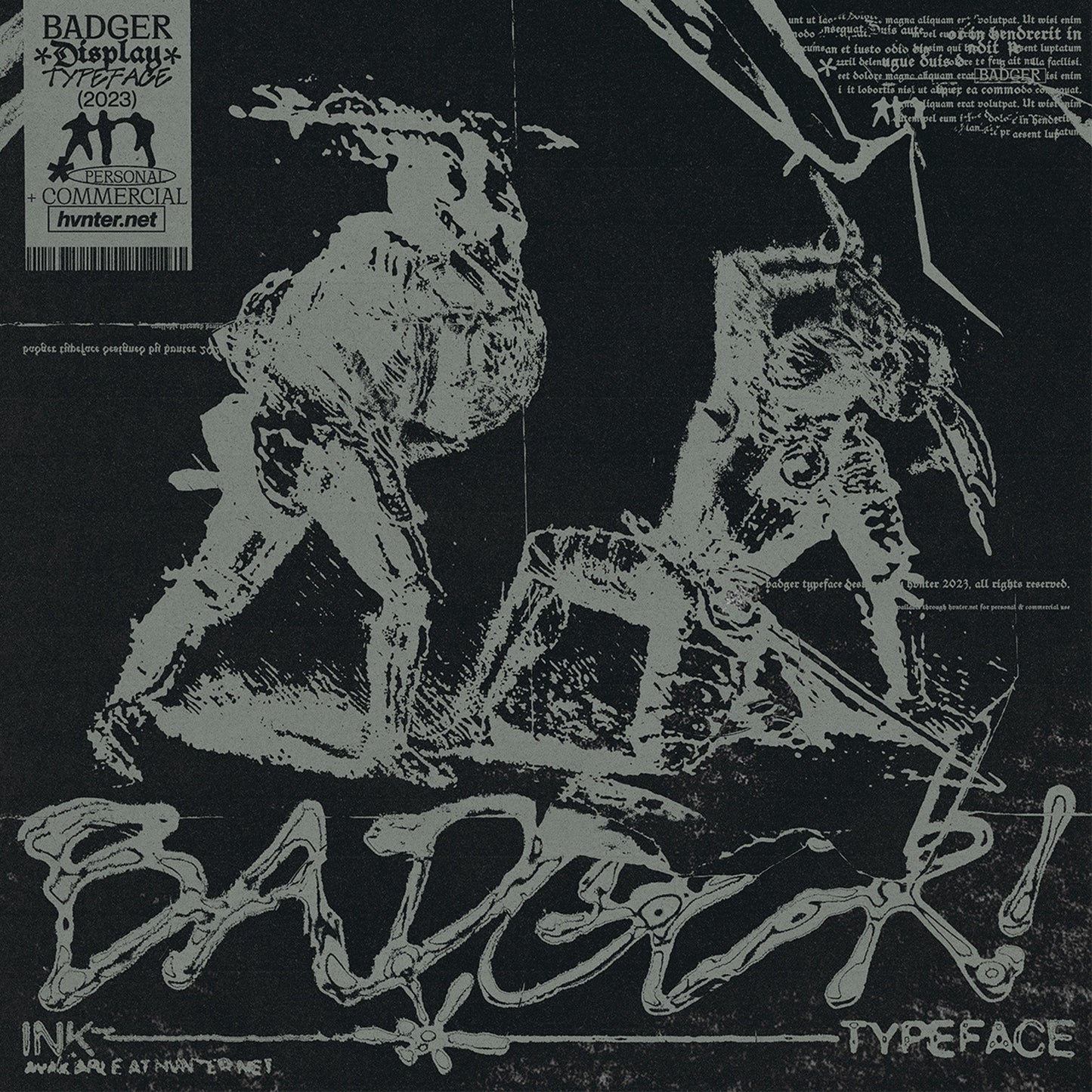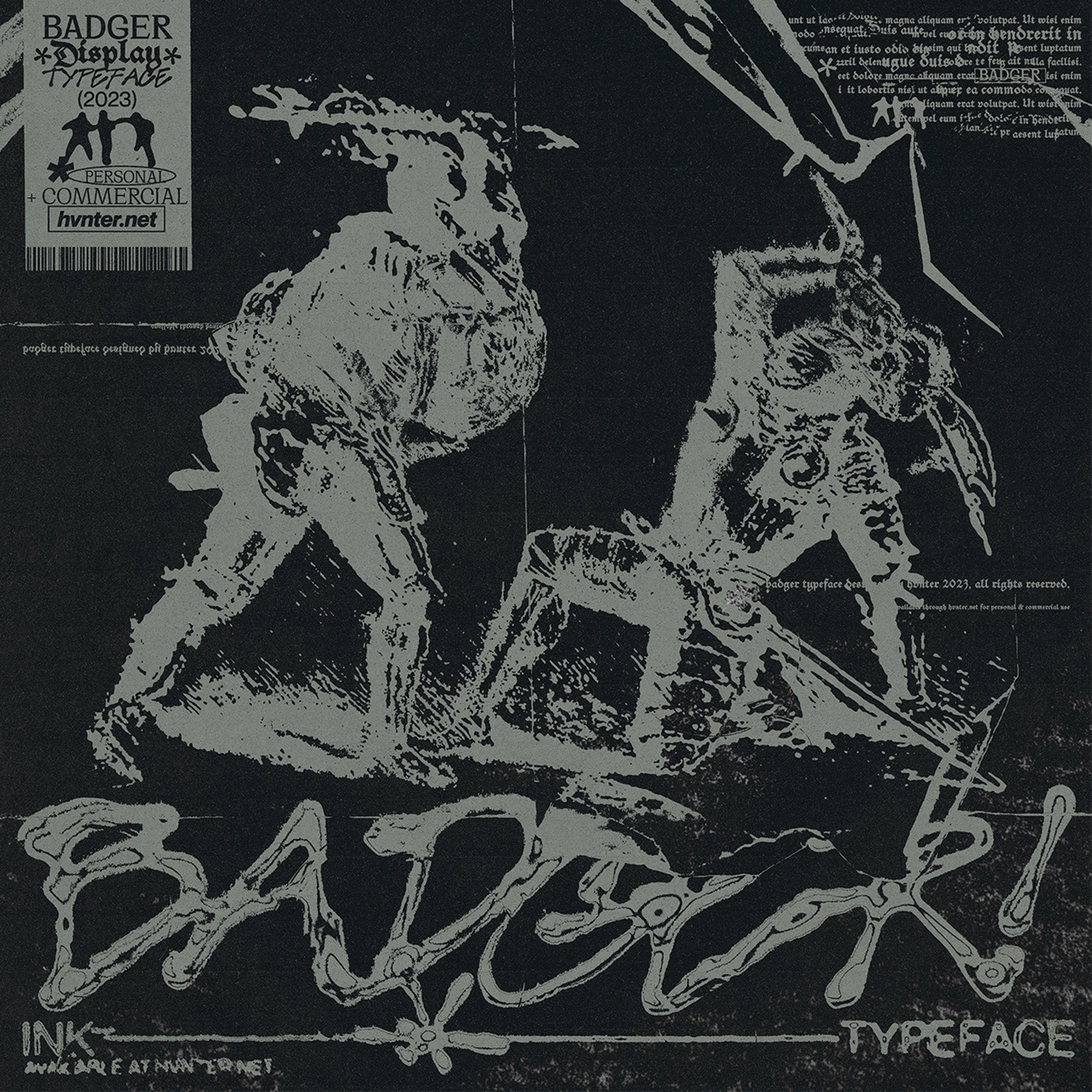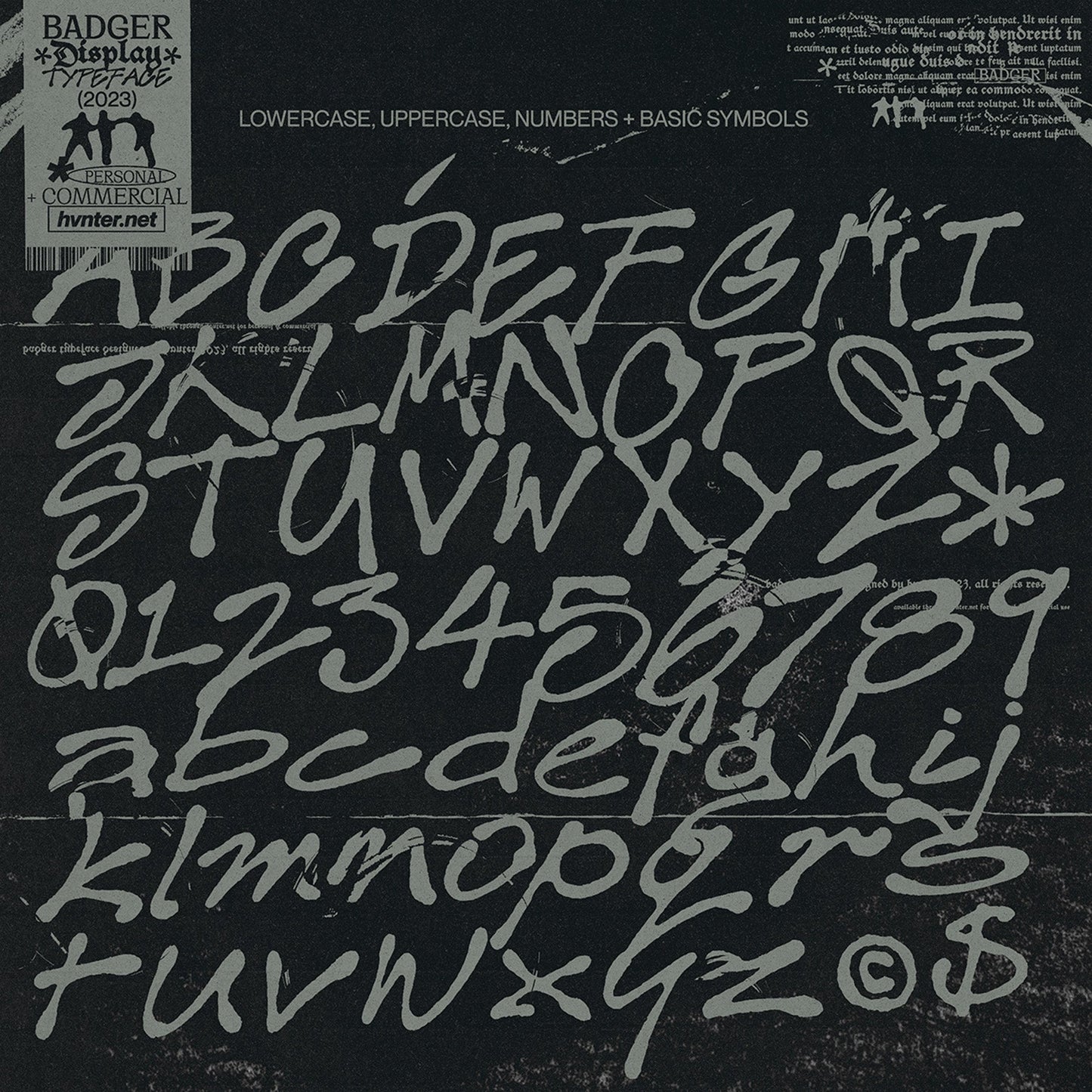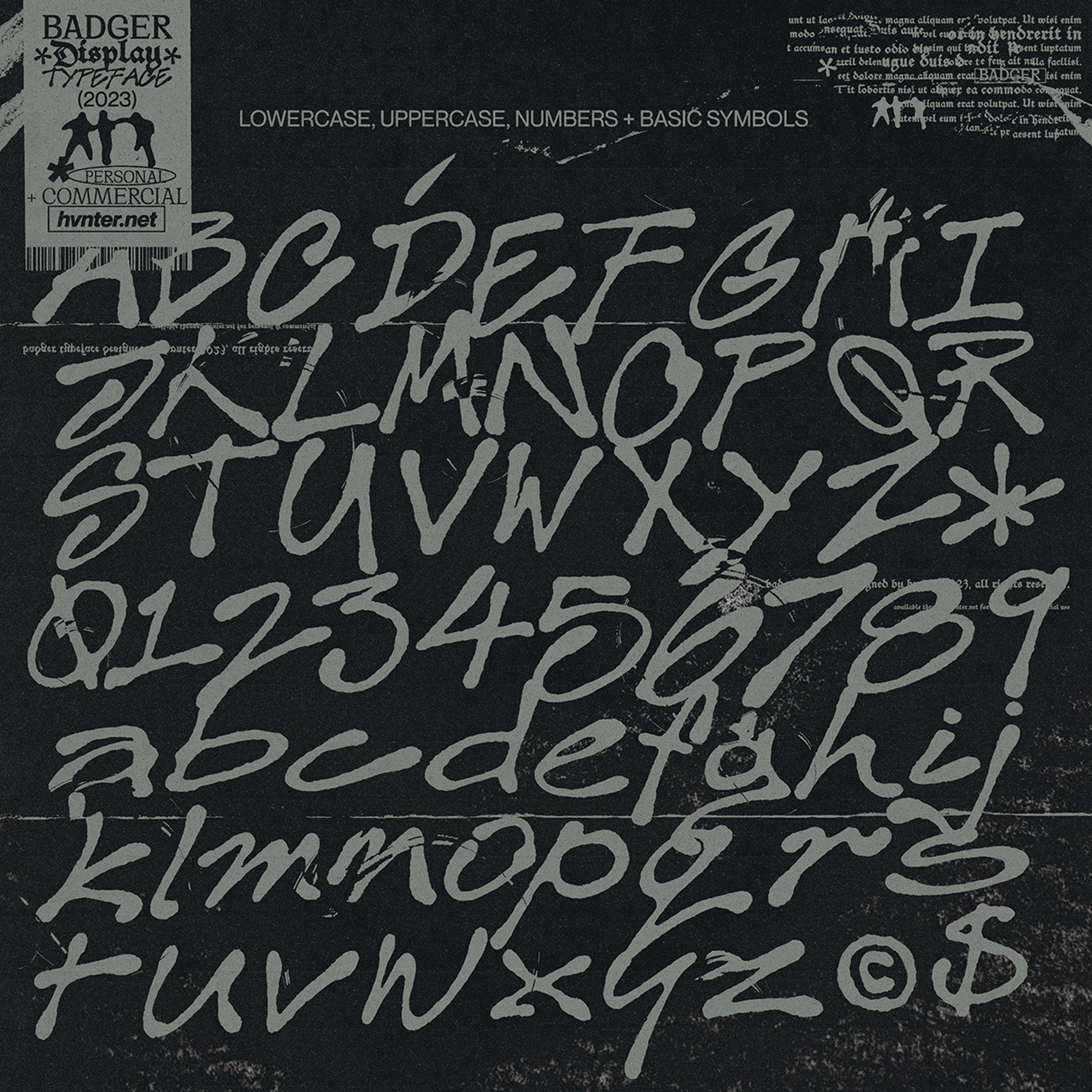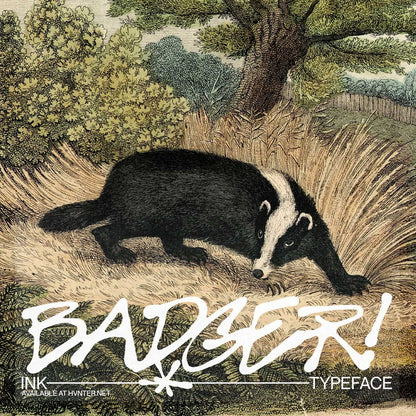
BADGER — Ink Display Typeface
Badger is scrawled. Inked. Dragged across the page with intent.
A hand-drawn ink display typeface with British bite and scratch-built character. Each letter was written fast — but meant to last.
It’s expressive.
Loose.
Unfiltered.
Badger feels at home on: zine covers, pub posters, indie merch, editorial spreads, street graphics, packaging that refuses to behave!
The strokes are imperfect by design.
The energy is human.
The personality is baked in.
Badger doesn’t whisper.
It badgers!
- Ink-driven character variation
Use it big. Let the strokes breathe.